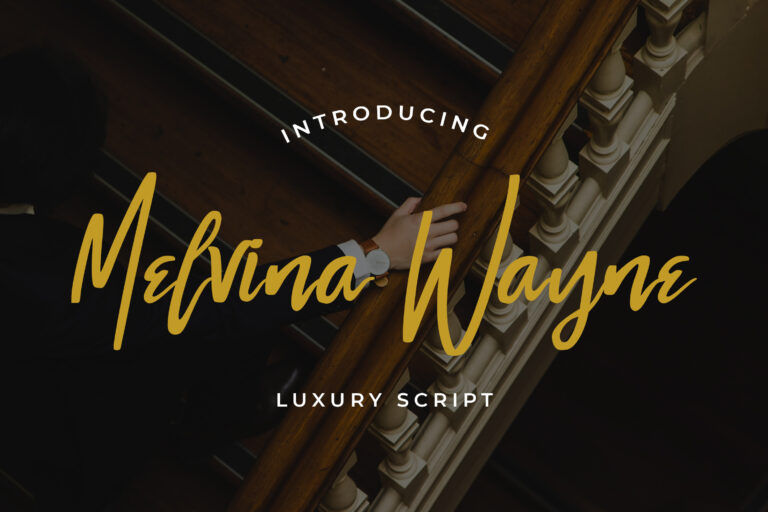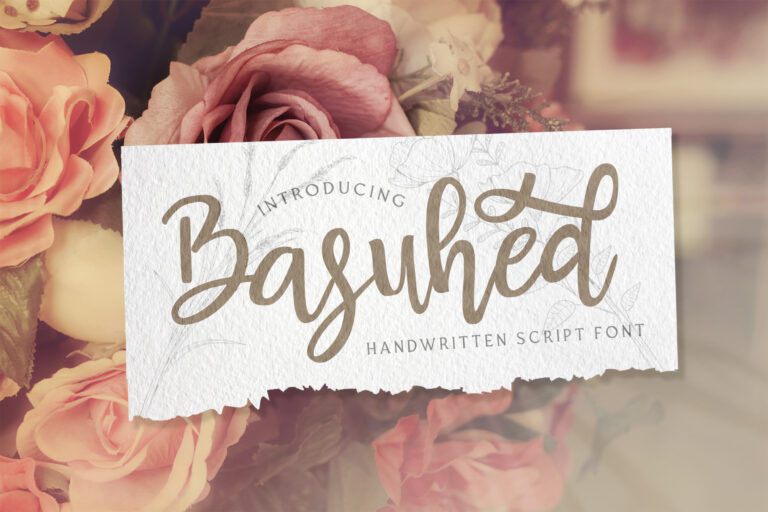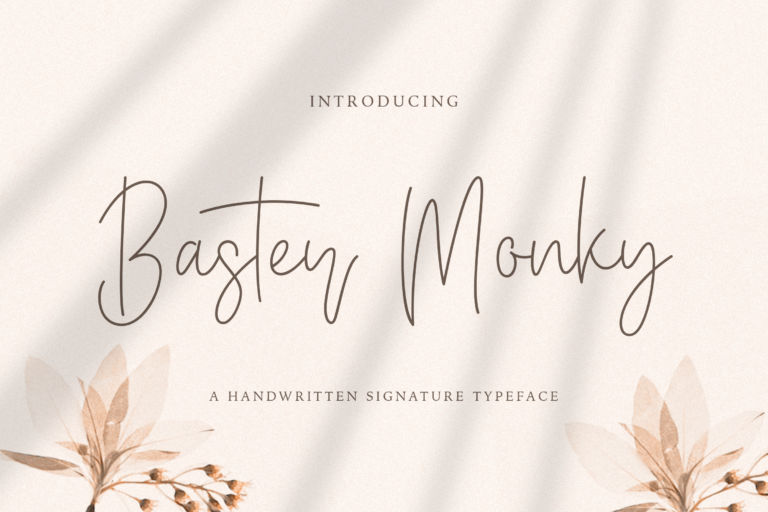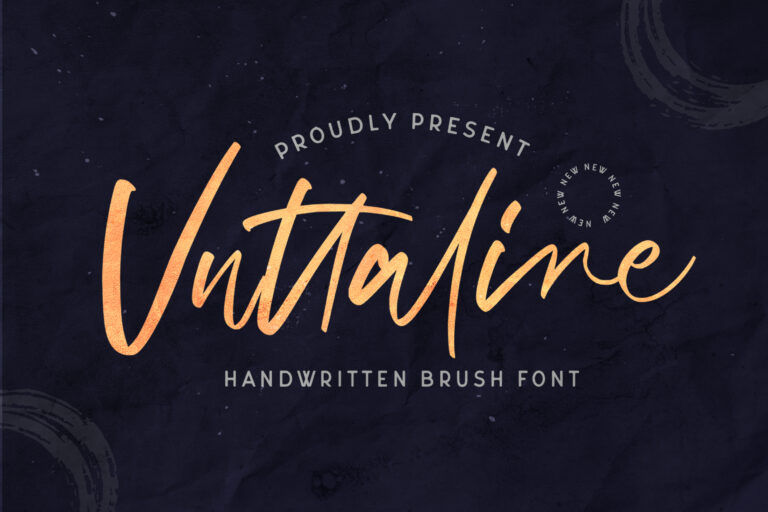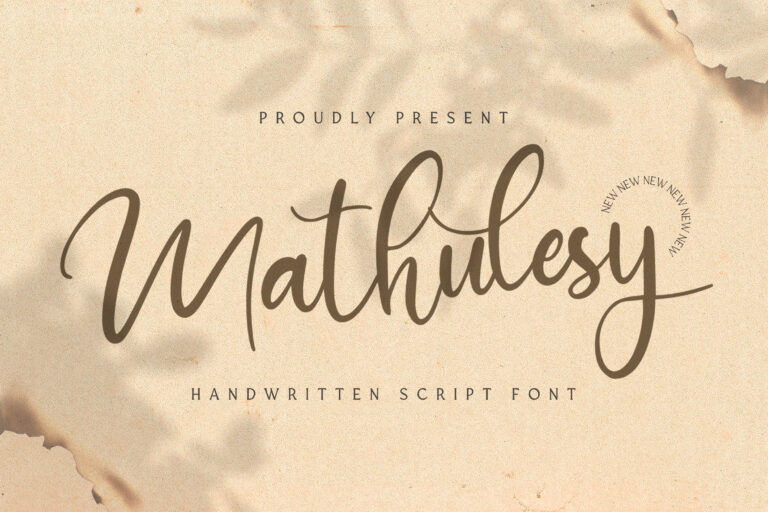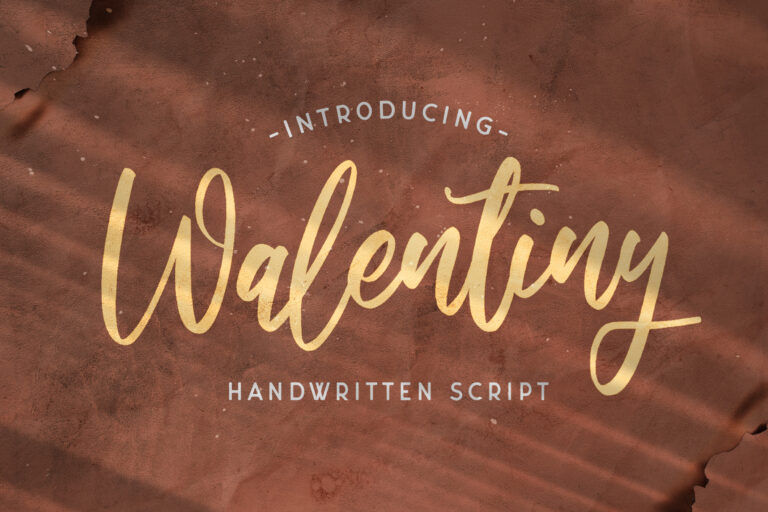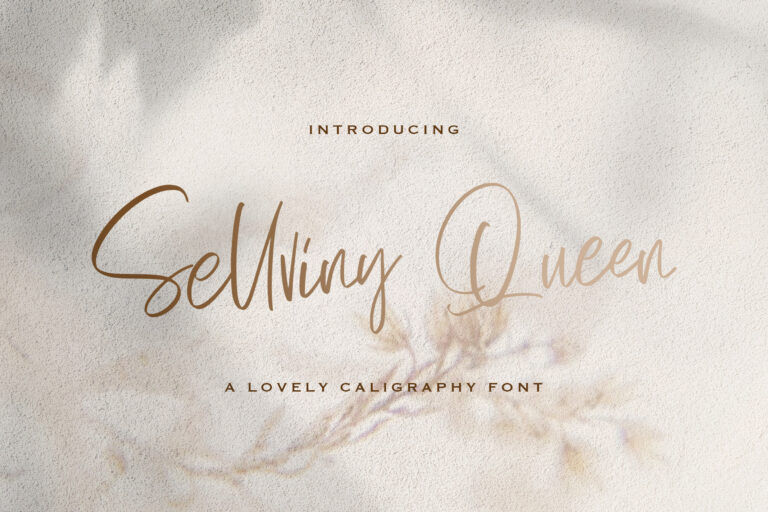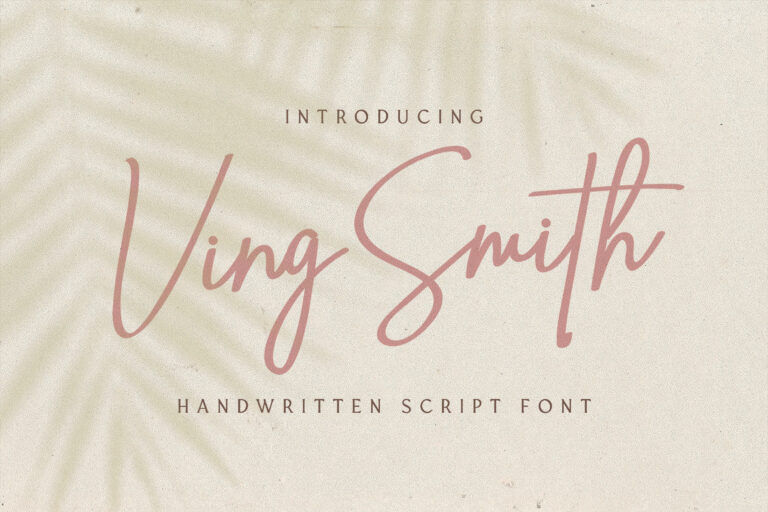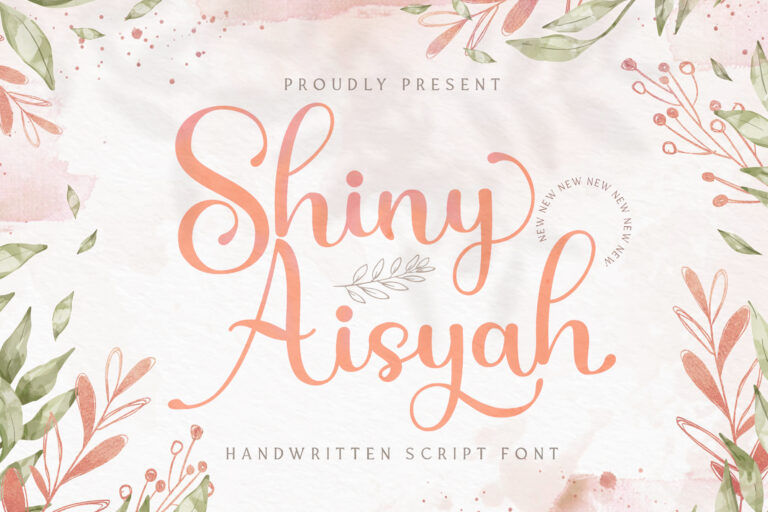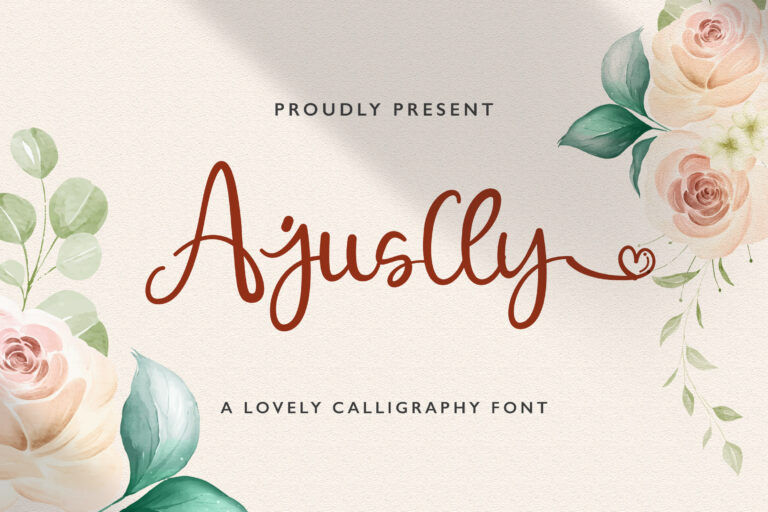
Best Fonts for Ads Targeting Premium Audience: 20 Luxury Fonts
Creating a lasting impression starts with the very first glance at your typography. Choosing the best fonts for ads targeting premium audience segments ensures your brand communicates prestige and effortless elegance right from the start.
Key Takeaways:
• The best fonts for ads targeting premium audiences are typically elegant, refined, and highly legible, helping to convey a sense of quality, trust, and exclusivity at first glance.
• Script fonts can be highly effective when used selectively, adding a touch of personalization and elegance.
• Serif and modern display fonts are great choices for luxury-focused campaigns, as their structured forms and high contrast create a high-end visual identity.
Discover the Best Fonts for Ads Targeting Premium Audience
Your choice of typeface is the silent heartbeat of your marketing strategy, defining how luxury is felt before a single word is read. These selections bridge the gap between simple design and high-end storytelling. Let’s take a look!
1. Melvina Wayne
Melvina Wayne is a bold, brush script with natural proportions. This font exudes a mysterious, elite persona, making it a favorite among the best fonts for ads targeting a premium audience.
2. Mystique
Mystique is made to accentuate your luxurious brand’s value. This handwritten signature font explores dynamic touches and beautiful letterforms, radiating authenticity and heritage.
3. Mayestica
Mayestica effortlessly enhances your opulent values and is designed to blend well with any other typeface. This versatile typeface is the best font for advertising posters, featuring confident swipes and beautiful alternates.
4. Flavellya
Flavellya focuses on aesthetic sincerity, adding natural touches to the luxurious vision. Among signature fonts, Flavellya is somewhat upright, introducing unique visuals and better legibility.
5. Taniya Relly
Taniya Relly is a masterpiece of modern restraint. With quick, confident strokes, this font offers a chic persona. Its refined simplicity makes it a personal font for modern advertising.
6. Williamson
Williamson strikes a balance between feminine curves and masculine structure. Its elegant lines draw attention, while its fine, consistent strokes convey emotion with subtlety.
7. Arionna
Arionna is a calligraphy typeface highlighting a cute character. Its high-contrast strokes present a refined appeal to a wide age range, allowing you to use this font everywhere.
8. Mashiya
When aiming for more creative visuals, you need Mashiya. This font uses a monoline script style, allowing even wild swashes and loops to remain consistent without hindering legibility.
9. Vezthisory
Vezthisory is a script font with a modern bush look and handwritten style. Its polished artistry ensures the product remains the hero while the text provides a supportive, luxury framework.
10. Basuhed
Basuhed is among the best fonts for ads targeting premium audience, featuring irregular letterforms and organic, floral details that convey a relaxed yet authentic sense of luxury.
11. Baster Monky
Baster Monky is the perfect font combination for luxury foods, heritage themes, and complementary cards. Its slander profile provides elegance without being overwhelming to the eye.
12. Vuttaline
Vuttaline is the best font for advertising poster. With its dynamic presence, you can display real movement, from thick beginnings to the thin ends. Its striking letterforms also easily attract attention.
13. Mathulesy
Mathulesy is an expressive script with generous loops and swashes. Its light, curvaceous appearance exudes a youthful and playful vibe, allowing a younger target audience to relate.
14. Walentiny
For a script font, Walentiny uses thicker lines and closer kernings. This profile subtly marks emotional and intimate feelings, perfect for a luxury product that promotes meaning rather than style.
15. Sellviny Queen
Leaning into artistic typography, Sellviny Queen features exaggerated letterforms with sweeping strokes and strong contrast. This interplay of large and small characters creates a memorable visual that enhances brand recognition.
16. Ving Smith
Ving Smith modern handwritten font gives a more polished finish to the natural writing. Its uniform orientation, consistent slant, and delicate lines made it the perfect luxury brand.